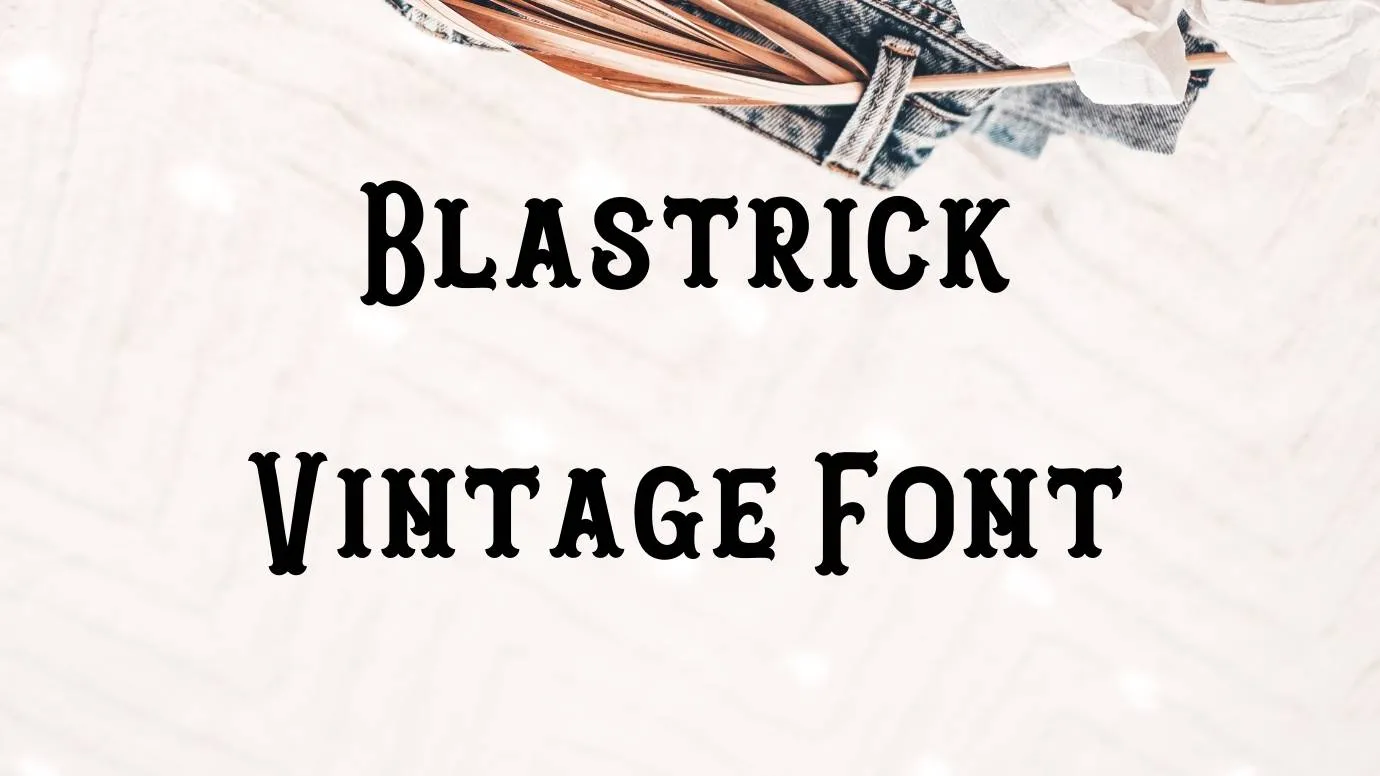
Blastrick Vintage Font Family is a display font, was originally created by Graptail. You can find the premium version on Creative Market. It features eight appealing weights, offering a variety of design possibilities. This display font has a 3D appearance due to its sketched characters. This typeface has 154 stylish and eye-catching letters including all lowercase and symbols.
The shadow characters of this typeface make your designs more beautiful. It has more than one hundred aesthetic glyphs that make an impressive look to your text designs and projects. If anyone wants to make it pair with another display font and create new and unique designs then Netflix Font is the perfect option for these projects.
| Name | Blastrick Vintage Font |
| Type | Display |
| Designer | Graptail |
It was created for the first time by Graptail and it comes in attractive and fantastic 08 styles. Many designers love this font due to its elegant look.